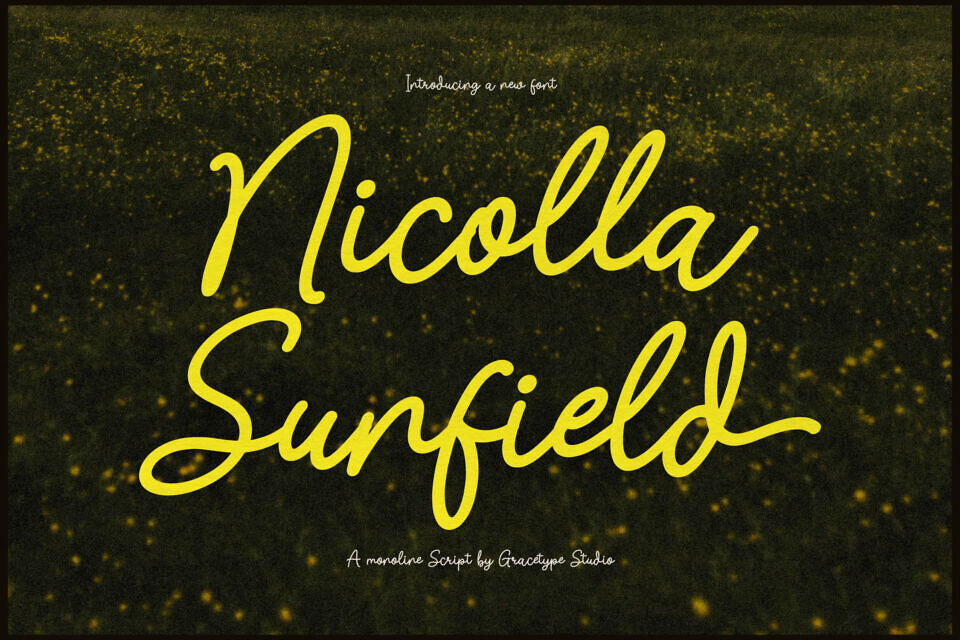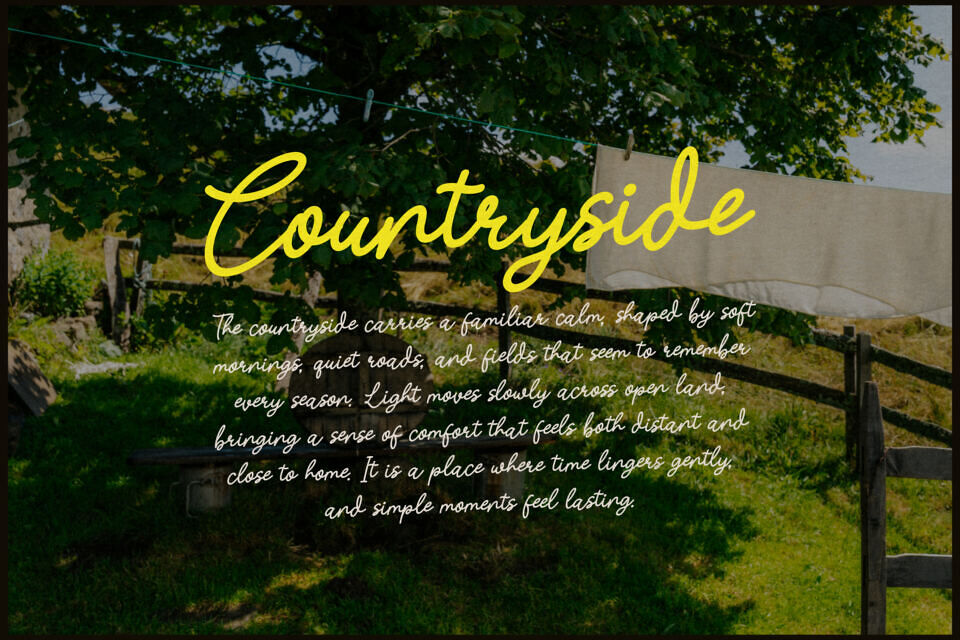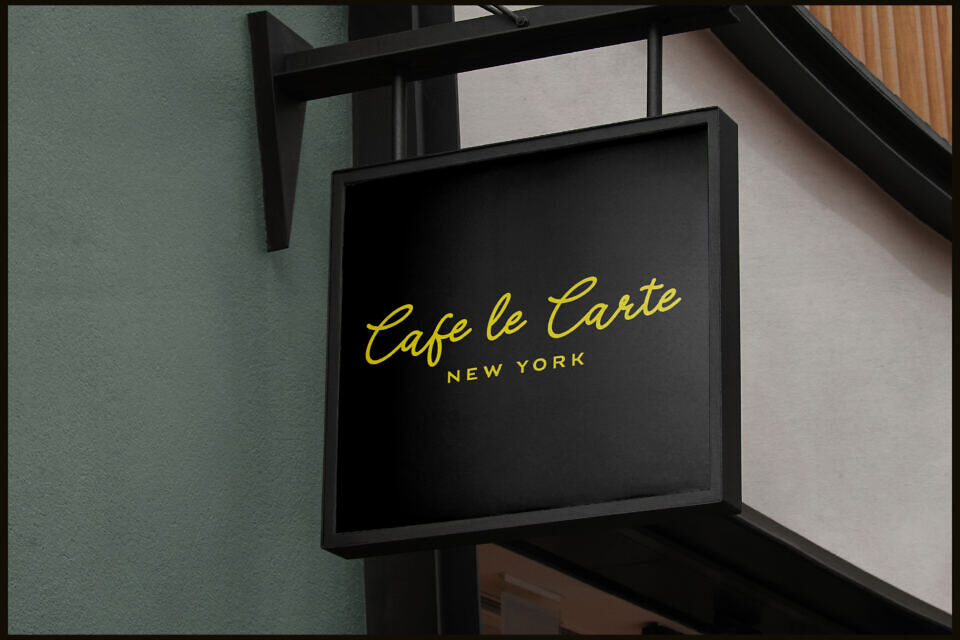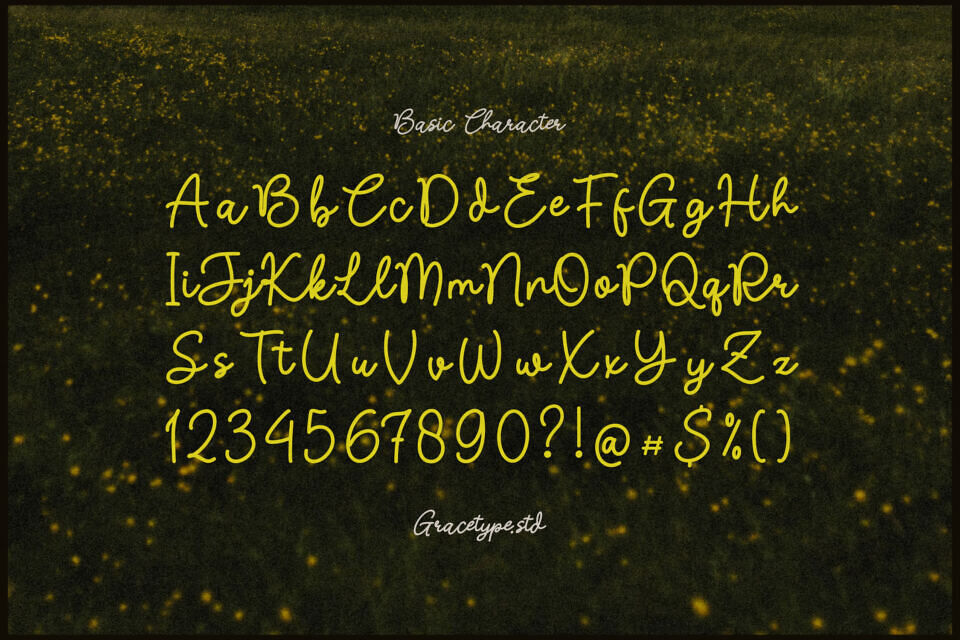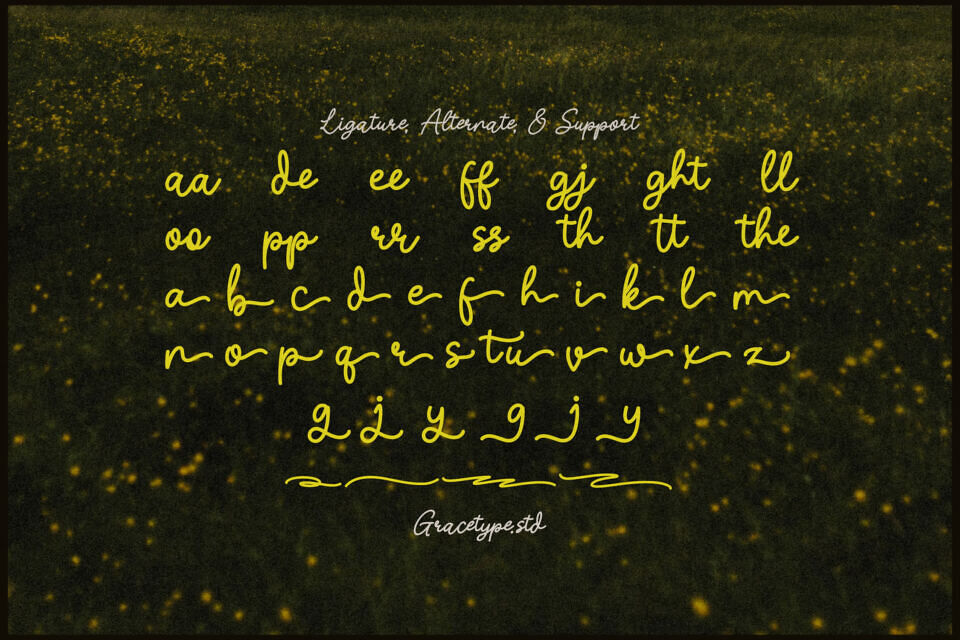
Nicolla Sunfield Font
Nicolla Sunfield typeface captures the natural flow of a marker, making it a perfect fit for lifestyle branding, organic product packaging, and wedding stationery. With its consistent line weight and dancing baseline, the Nicolla Sunfield font provides a hand-crafted aesthetic that feels both professional and intimate.
Use this Nicolla Sunfield typeface for signature-style logos, social media quotes, or delicate labels where you want to convey a sense of calm, beauty, and personal connection.